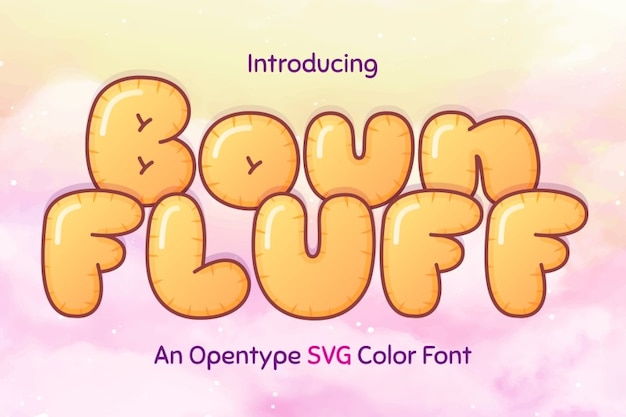
Boun Fluff is a puffy, rounded font that’s as soft and fluffy as a cloud. With cushiony curves and a gentle bounce, it brings cozy charm to playful designs, kid-friendly branding, or anything that needs a warm, huggable feel. Boun Fluff turns every word into a sweet, snuggly delight full of softness and fun